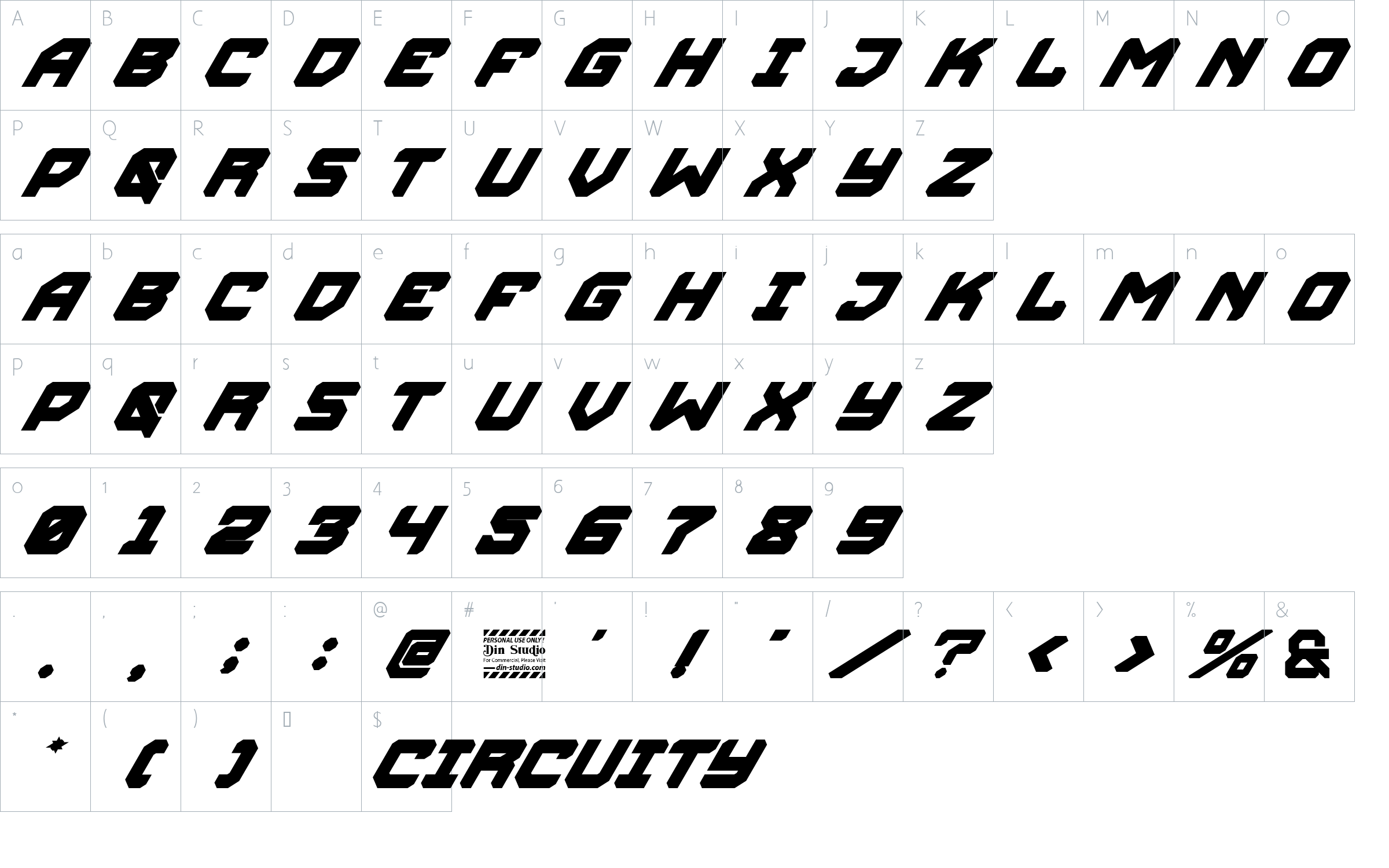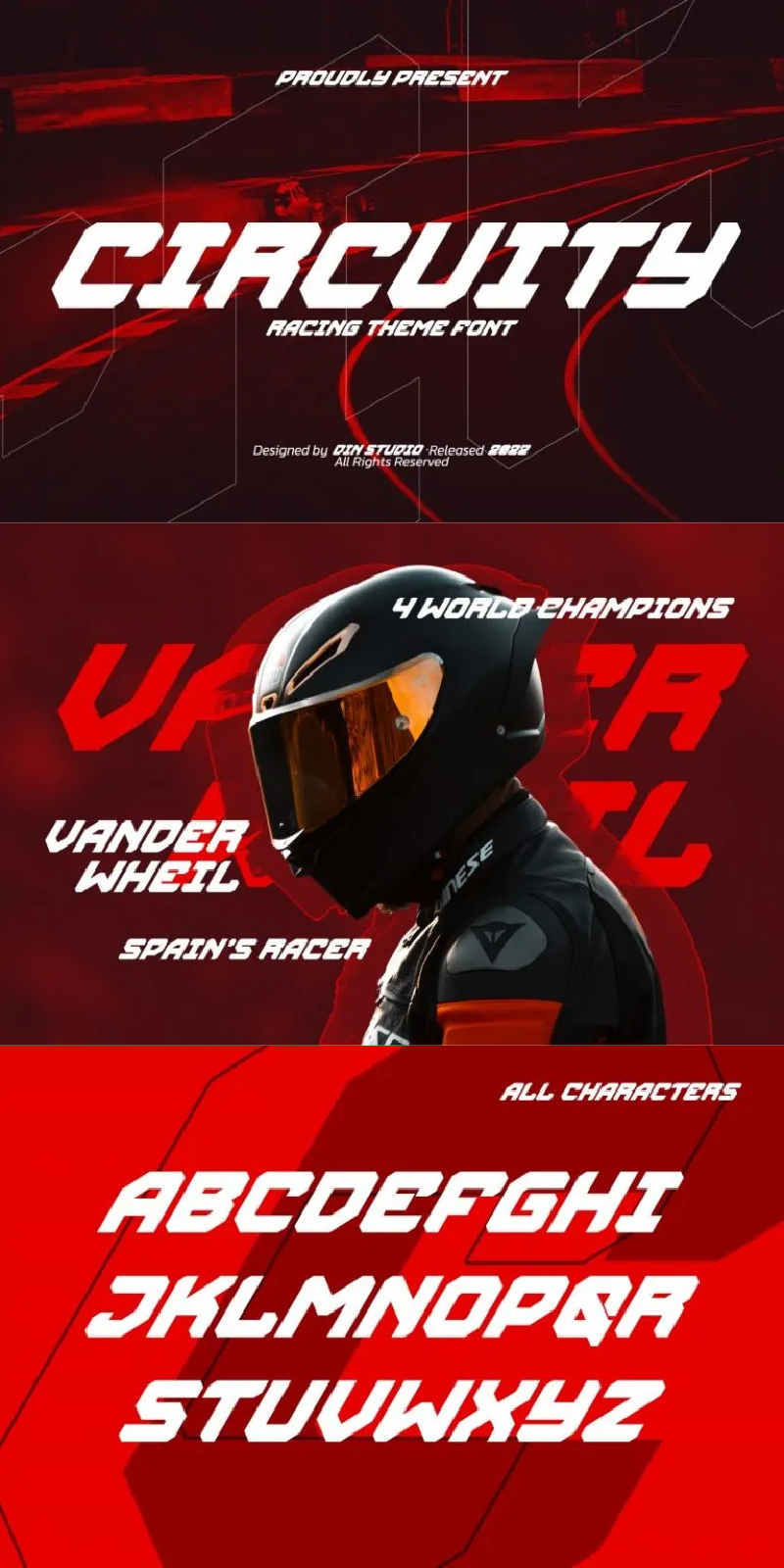
Circuity Font
About Circuity
Circuity is a display font designed in a racing theme which provides a unique yet modern capital letter font. Each stroke shows a firm brave character. Due to its shape and size, it is suitable to apply for a large-sized text such as titles. Enjoy the interesting features to maximize the design projects.
Circuity is definitely proper to use in any design projects such as posters, banners, logos, book covers, headings, printed products, merchandise, social media, and so on. Find out more ways to use this font by taking a look at the font preview.